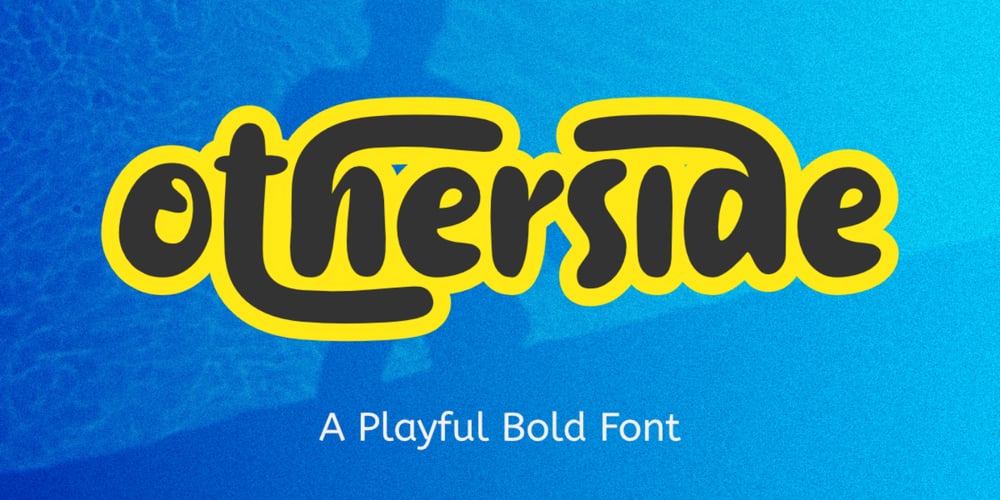
Other Side Font Family was designed by Aldy Sidik and published by Epiclinez. Other Side contains 1 styles and family package options. Otherside is a bold and playful handwritten font. It’s suitable for various kinds of projects, such as logos and packaging.